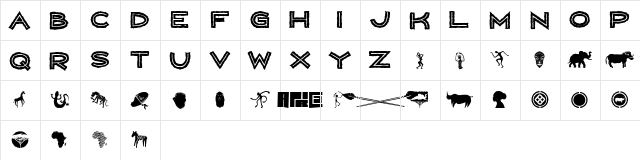
WILD AFRICA Regular
| Designer | Andrew Hart |
Design Context for WILD AFRICA Typeface
WILD AFRICA is a composed and adaptable typeface that performs quietly and consistently across a wide range of design contexts.